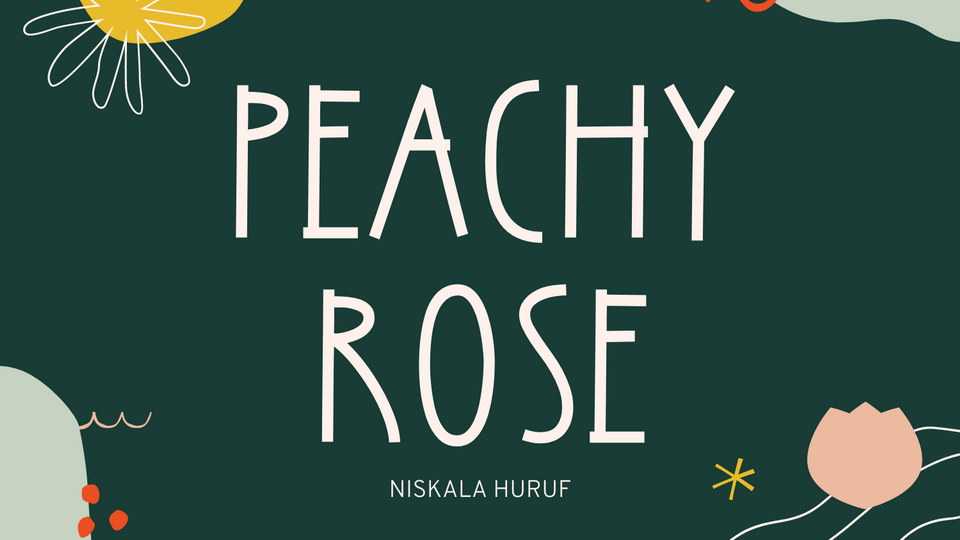
Download Peachy Rose font, a super fun and playful typeface. Peachy Rose is perfect for headings, flyer, greeting cards, product packaging, book cover, printed quotes, logotype, apparel design, album covers, etc.
Designer: Ali Hamidi